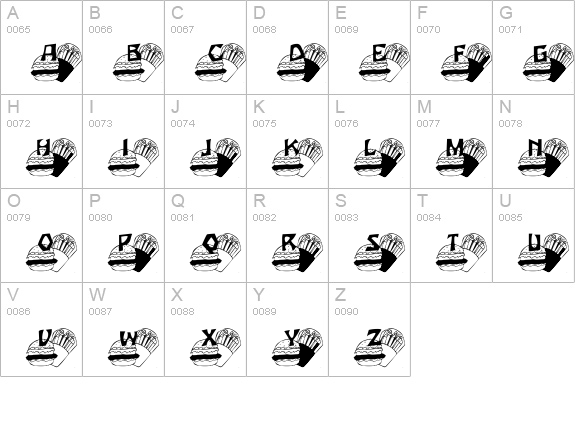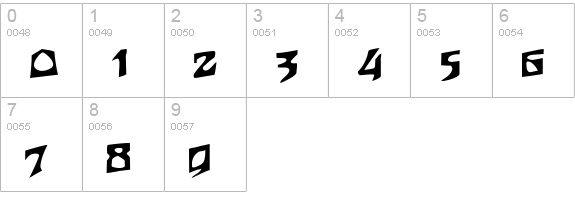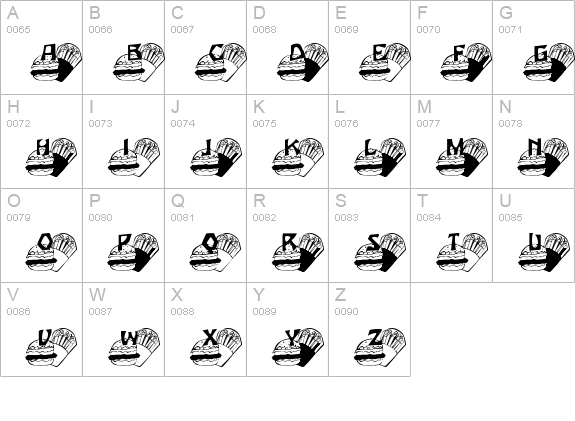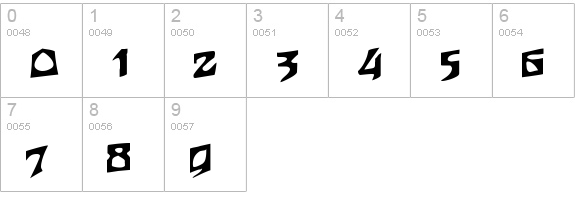
Fast Food Font Details
The Fast Food font is a fun and energetic typeface that perfectly captures the essence of quick and delicious fast food. Its bold and playful design is reminiscent of classic fast food signage, making it an ideal choice for food-related projects such as menus, posters, and advertisements. The Fast Food font is freely available to download at FontsMarket.com, allowing you to add a touch of fast food flair to your designs without any cost. With its eye-catching style and easy readability, the Fast Food font is sure to satisfy your craving for a delightful and appetizing typography experience.